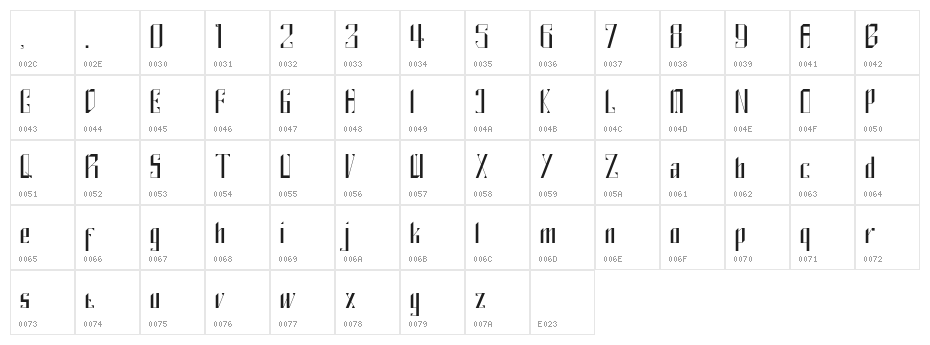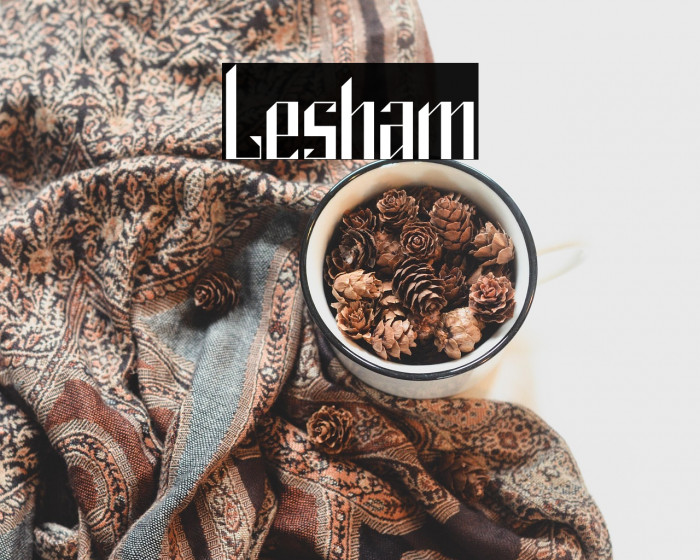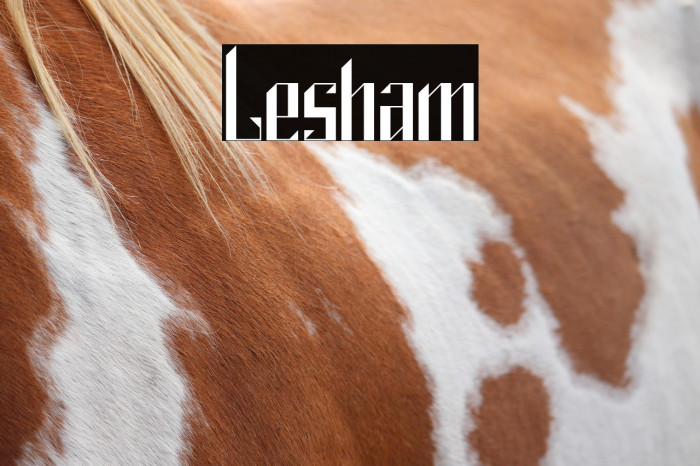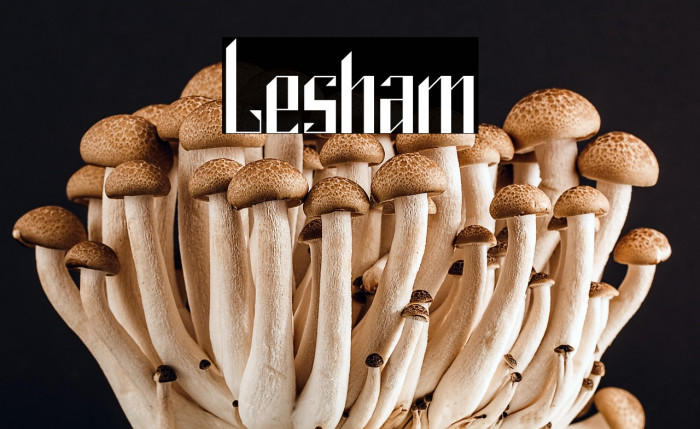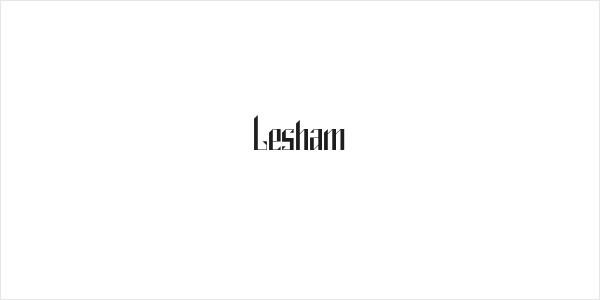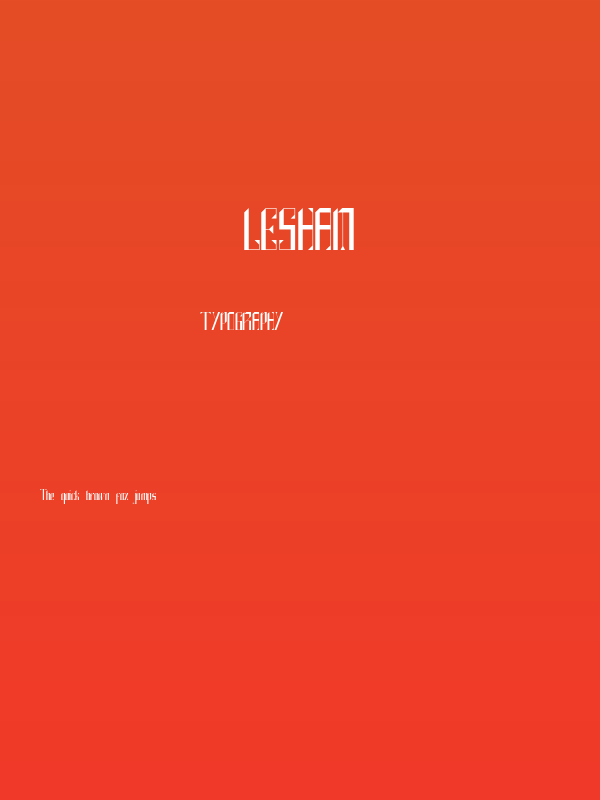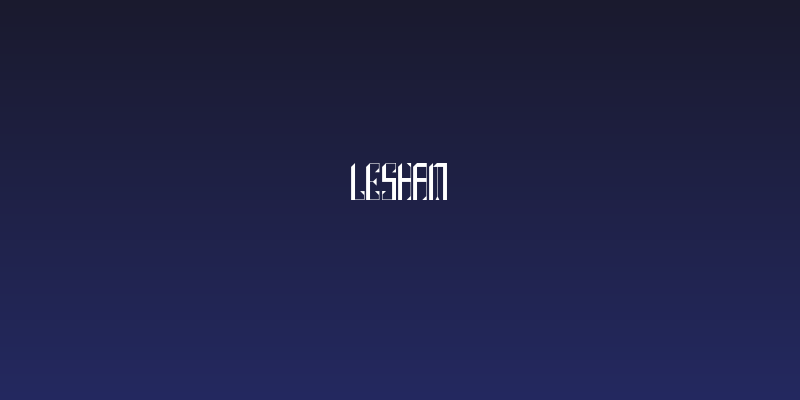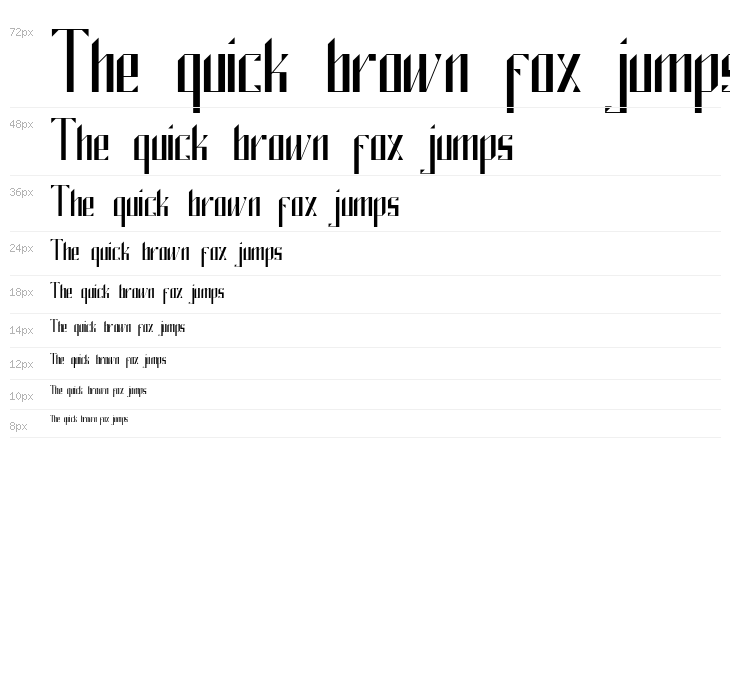
Lesham Font
Lesham Description
This font features a striking geometric design with sharp angles and a modern aesthetic. The characters are constructed with a combination of thick and thin strokes, creating a high contrast that enhances its bold appearance. The uppercase letters are particularly angular, with unique cuts and slants that give the font a futuristic feel. The lowercase letters maintain the geometric style but are slightly more rounded, providing a nice balance. Numbers and special characters follow the same design principles, ensuring consistency across all elements. This font is ideal for making a strong visual impact.